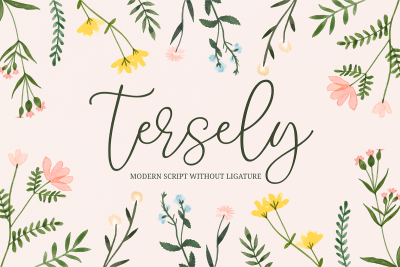
Tersely - a Script without Ligature Font
Designers reaching for Tersely - a Script without Ligature find a typeface that holds up across diverse media — print, web, and motion.
Common applications include business cards, posters, web headers, advertising materials, book covers, and corporate identity systems.